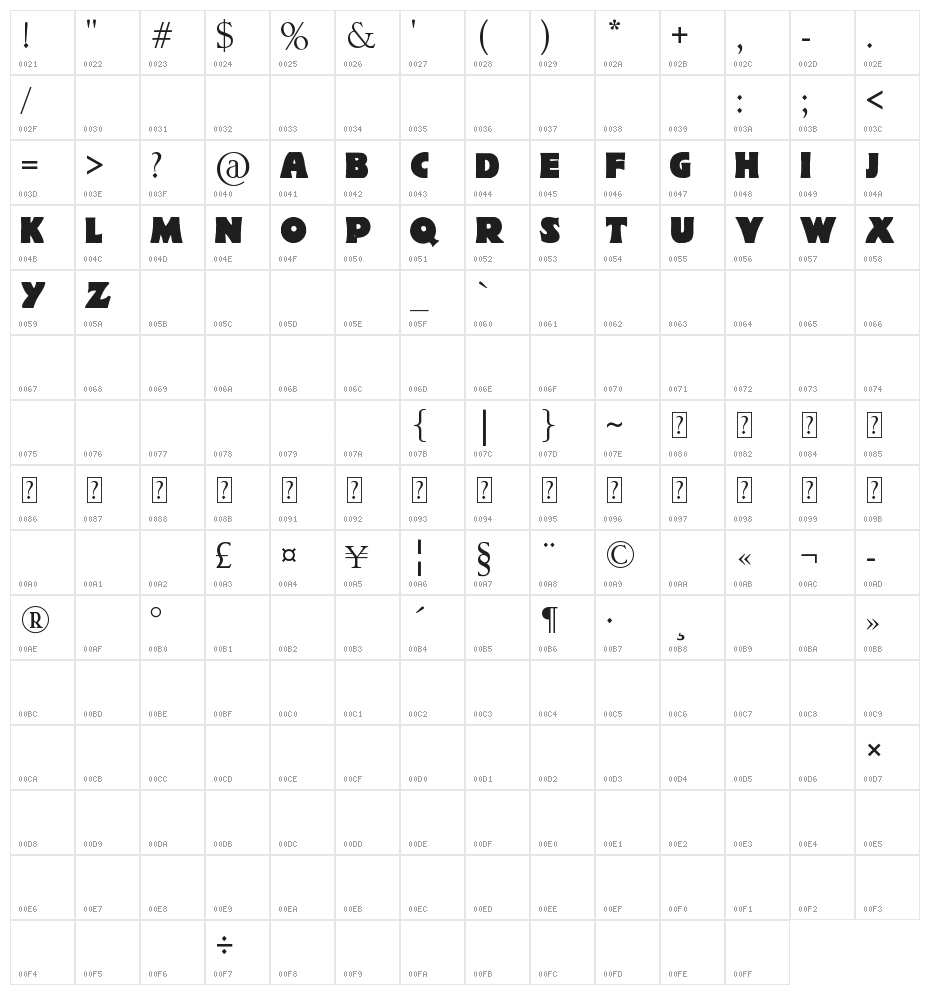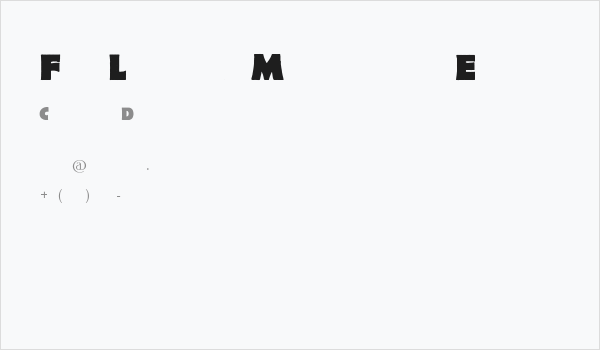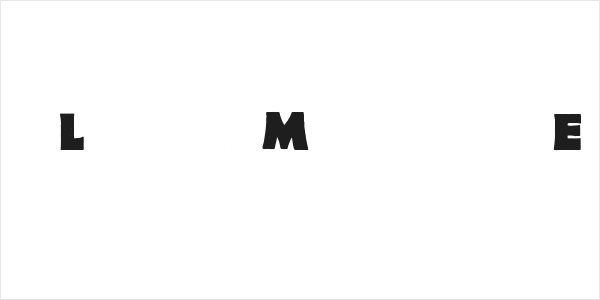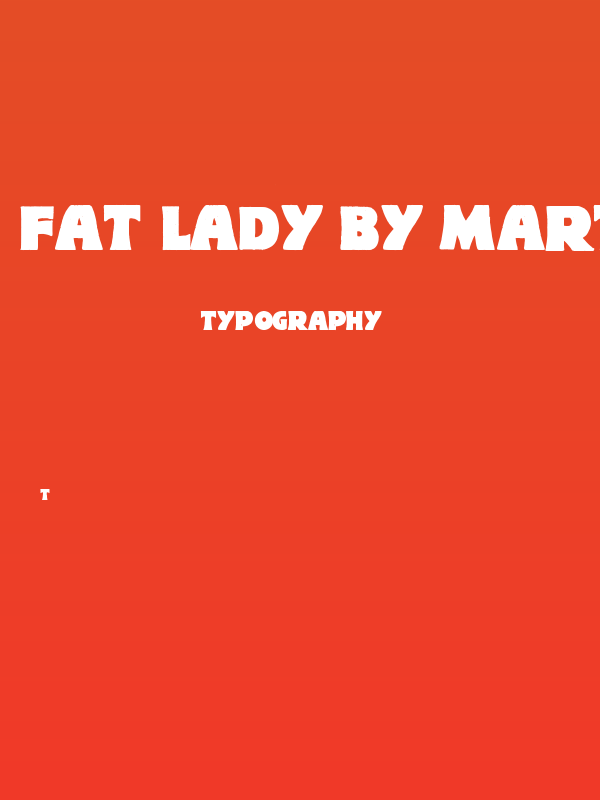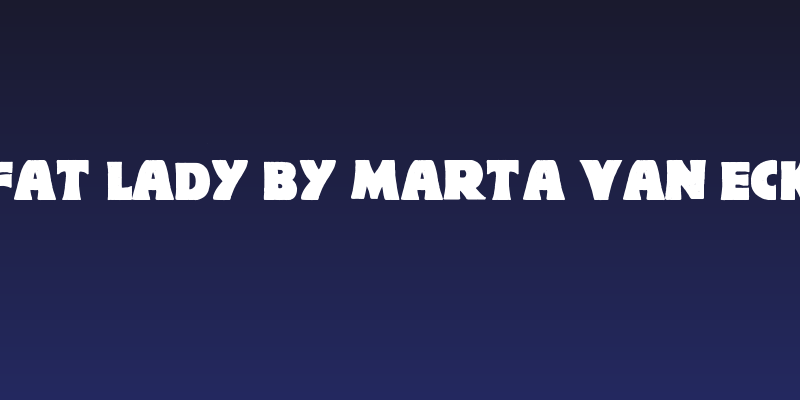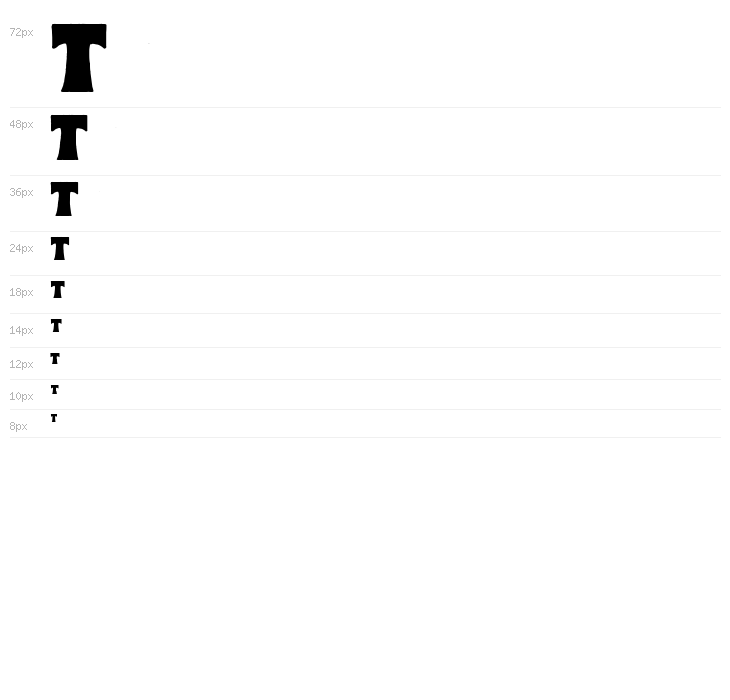
Fat Lady by Marta van Eck Font
Fat Lady by Marta van Eck Description
This font features bold, thick lettering with a playful and exaggerated style. The characters are rounded and have a heavy weight, making them stand out prominently. The uppercase letters are particularly wide and have a strong presence, while the lowercase letters maintain the same boldness. The font has a whimsical and fun appearance, suitable for creating eye-catching designs. The special characters are consistent with the overall bold style, adding to the font's cohesive look.
| Overall Style | Playful, Fun, Bold |
| Use Case | Headlines, Posters, Branding |
| Proposed Projects | Ideal for posters, children's book covers, playful branding, and any design requiring a bold, fun aesthetic. |